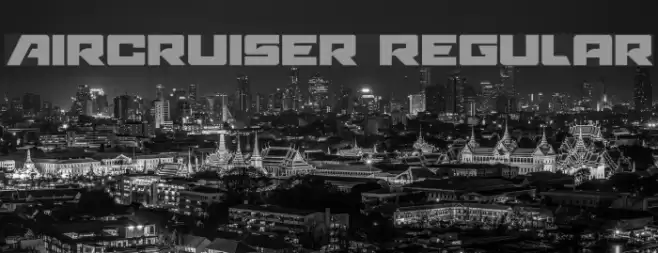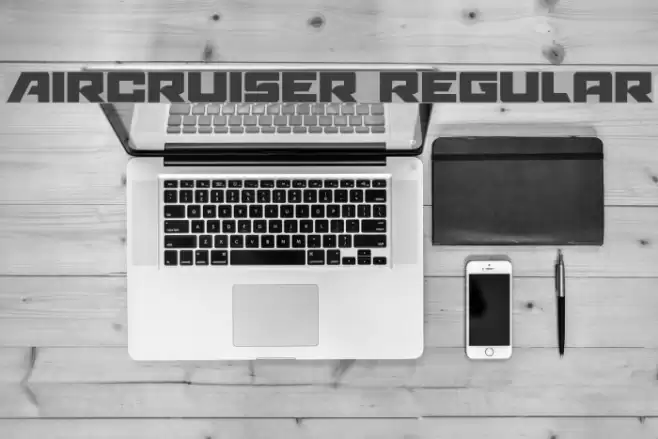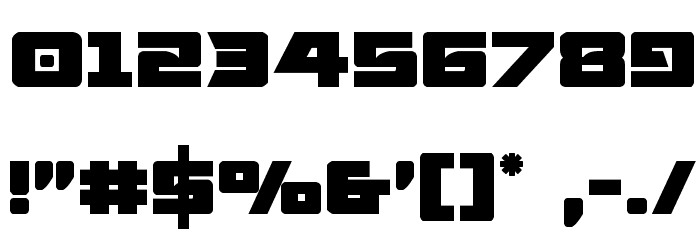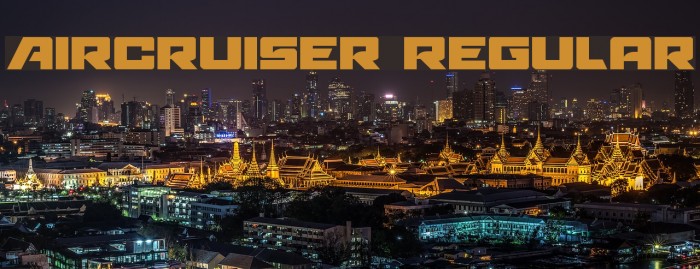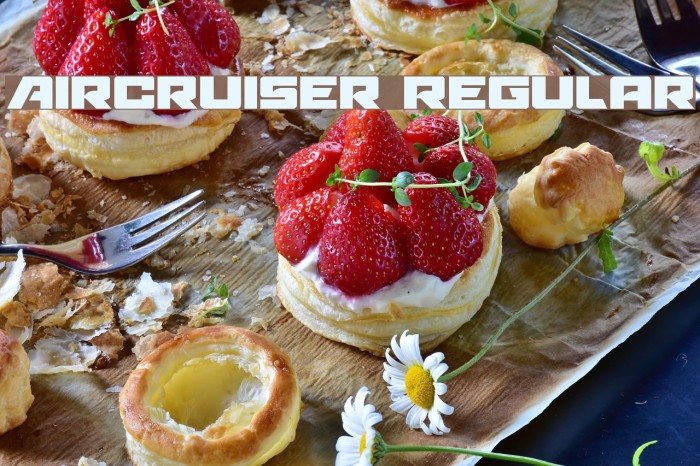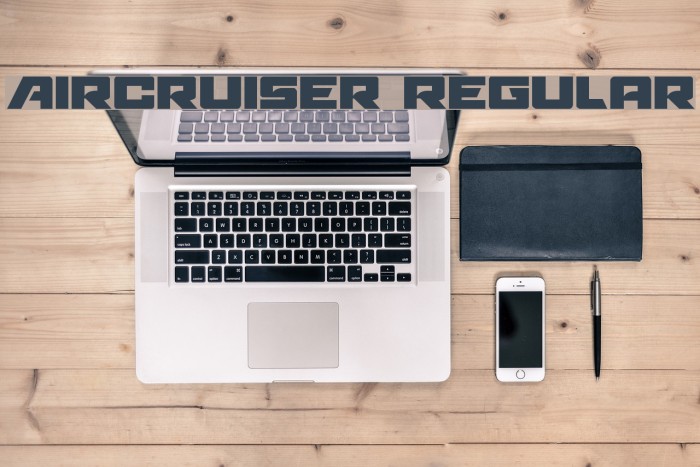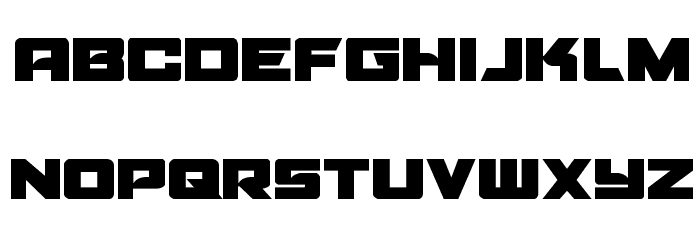
Aircruiser Regular Font
Aircruiser Regular Description
This font features a bold, geometric design with a futuristic and industrial feel. The characters are constructed with strong, angular lines and a blocky appearance, giving it a robust and commanding presence. The uppercase letters are particularly striking, with a uniform height and width that create a cohesive and structured look. The numerals and special characters maintain this bold style, ensuring consistency across all elements. The font's design is ideal for projects that require a modern and impactful aesthetic, such as technology branding, video game titles, or sci-fi themed designs.
A bold, geometric font with a futuristic and industrial style from Uncategorized fonts.
- Proposed Projects: Ideal for technology branding, video game titles, sci-fi themes, and industrial design projects.